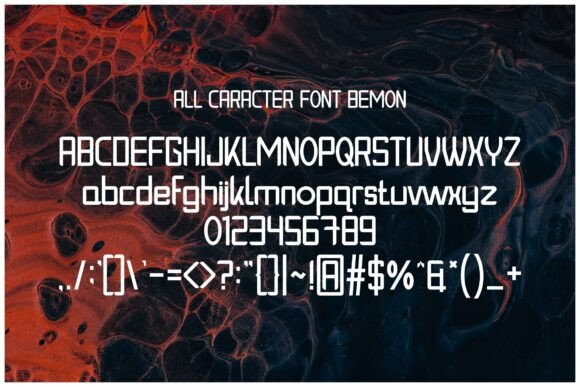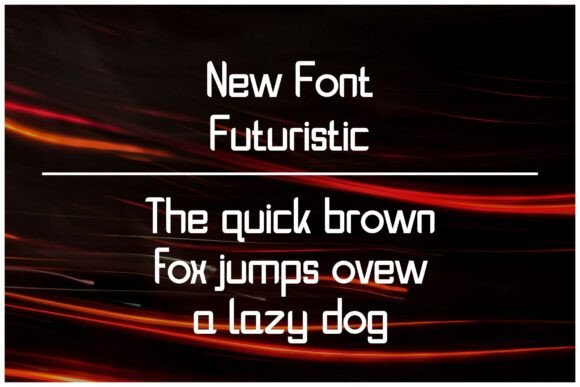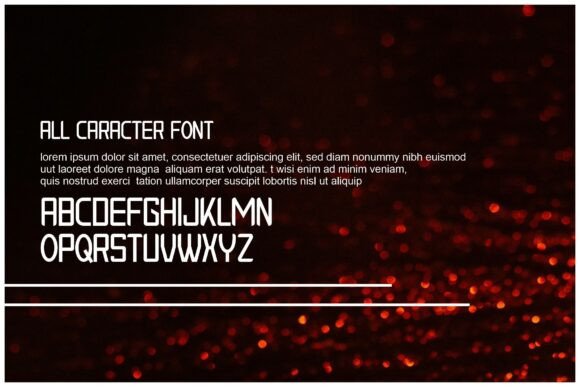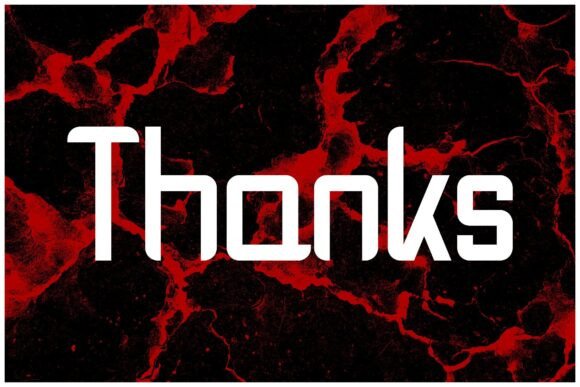
The Bemon Font: A Charming Addition to Your Design Arsenal
An Honest Review of Bemon Font
What I Love About Bemon Font ✨
- ✅ Versatility: Bemon font is incredibly versatile and can be used for a wide range of projects, from branding and advertising to packaging and digital media.
- ✅ Elegant Design: The font’s sleek sans-serif design and charming touch of style make it perfect for projects that require a modern and sophisticated look.
- ✅ Easy to Read: Bemon font is highly legible, even at small sizes, making it perfect for body text and captions.
- ⚠️ Limited Extras: Bemon font doesn’t come with a wide range of extras, such as swashes or alternate characters. However, what it does offer is well-designed and functional.
- ⚠️ Not Suitable for All Audiences: While Bemon font is perfect for modern and trendy brands, it may not be the best fit for more traditional or conservative audiences.
The Story Behind Bemon Font
Bemon font was designed with the goal of creating a modern and elegant sans-serif font that would be perfect for a wide range of design projects. The designer drew inspiration from the latest design trends and crafted a font that is both stylish and functional.
| Font Name | Bemon Font |
| Author | riotama85 |
| What is Bemon font? | Bemon font is a modern sans-serif font with a charming touch of style. |
| What is Bemon font used for? | Bemon font can be used for a wide range of design projects, including branding, advertising, packaging, and digital media. |